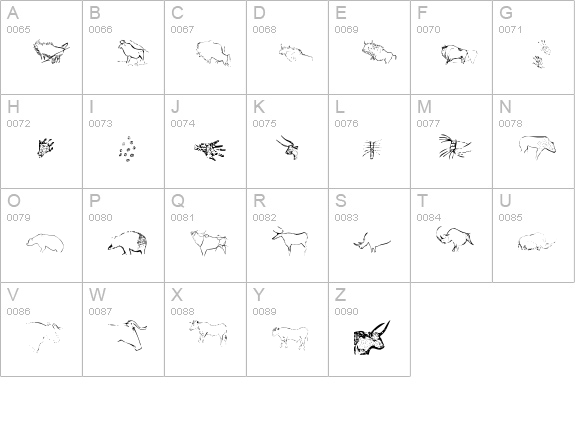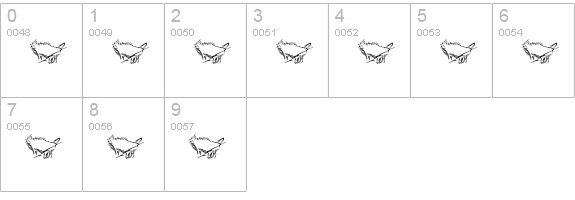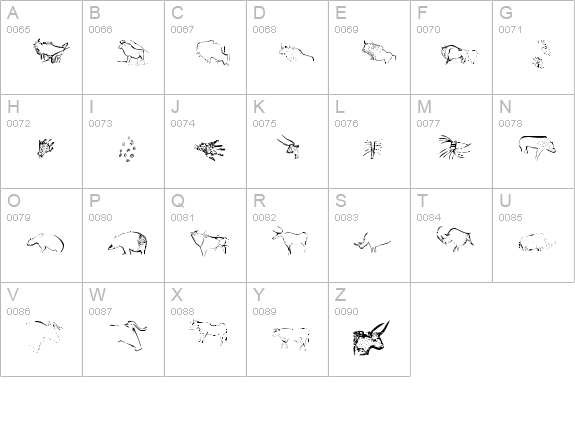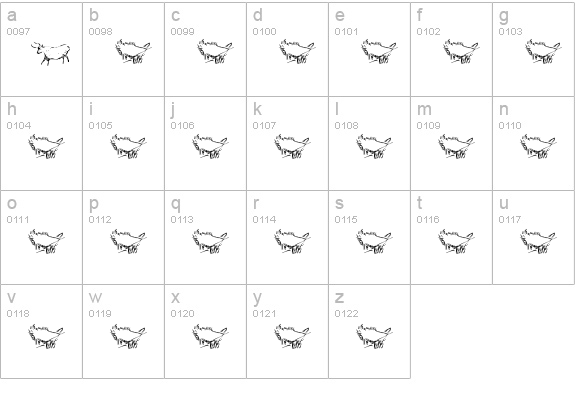
caveart Font Details
Introducing CaveArt Font - a mesmerizing display typeface inspired by ancient cave paintings and prehistoric art. This unique font captures the raw essence of history and adds a touch of mystique to your designs. The CaveArt Font features rugged brush strokes and intricate details, giving your projects a primitive yet sophisticated look. Best of all, the CaveArt Font is absolutely free to download at FontsMarket.com! Whether you're working on a branding project, poster design, or any creative endeavor, this font will add a touch of authenticity and intrigue. Embrace the primal beauty of the past with the CaveArt Font and bring a piece of history to your modern designs. Download it now and unleash your creativity with this captivating typeface.